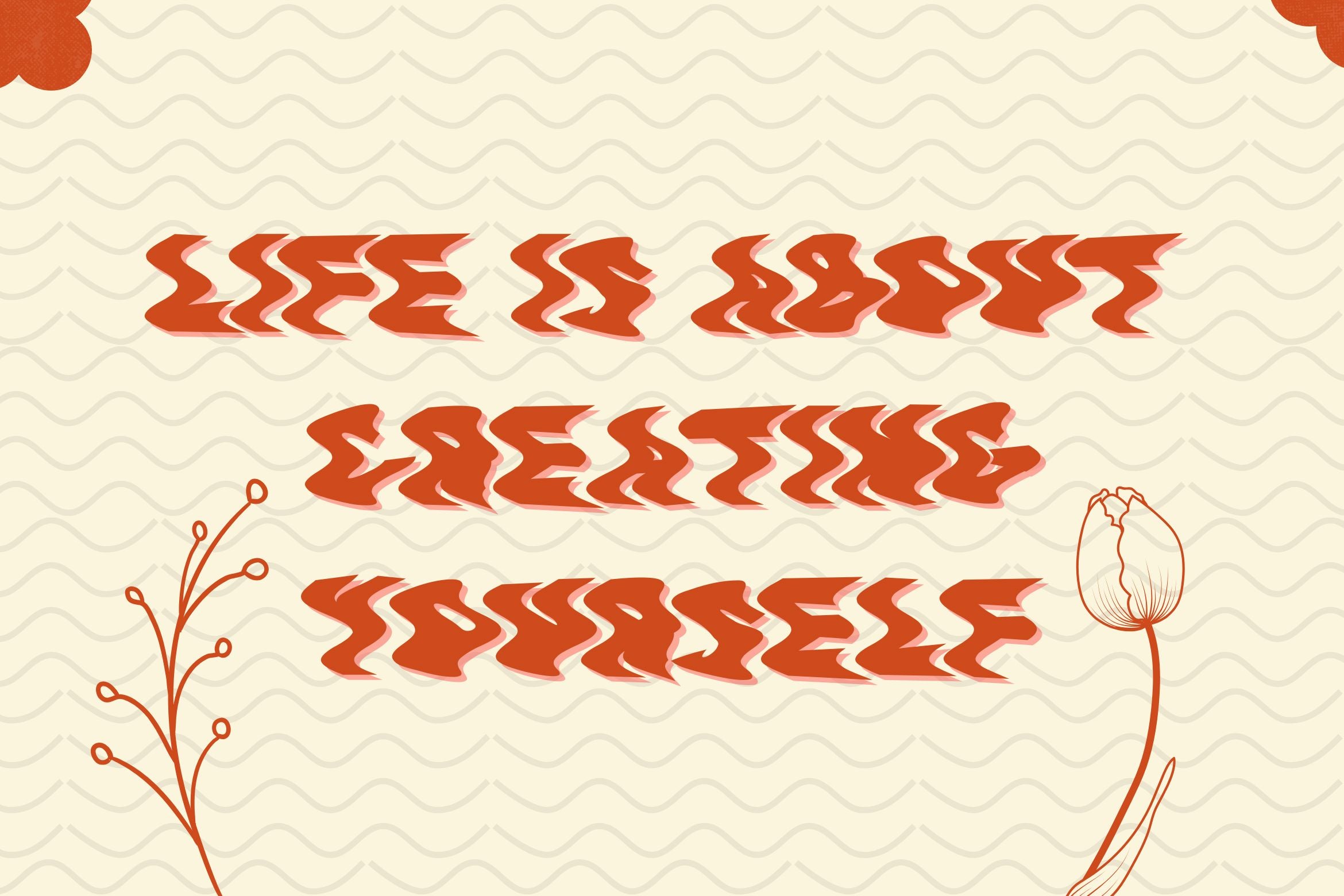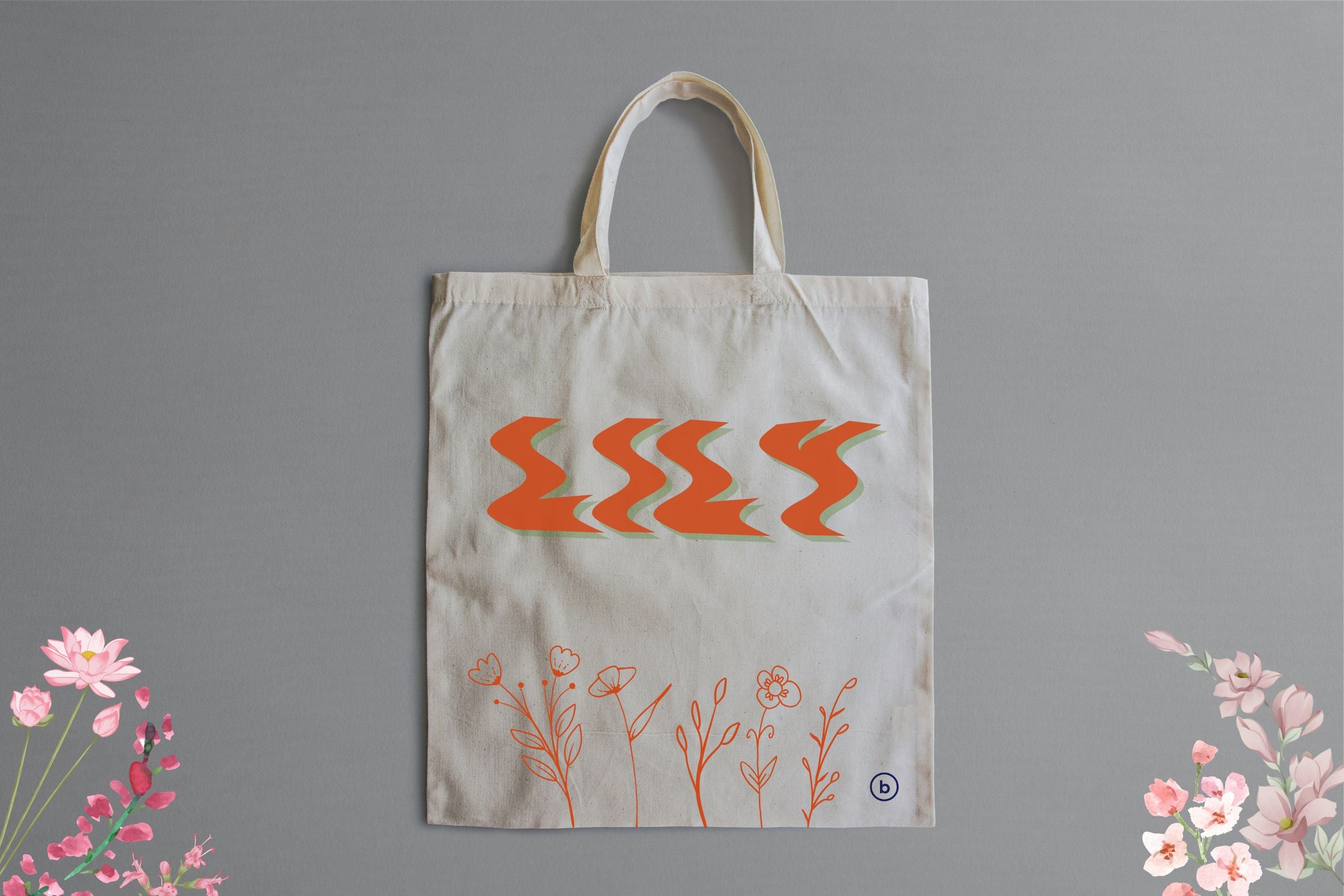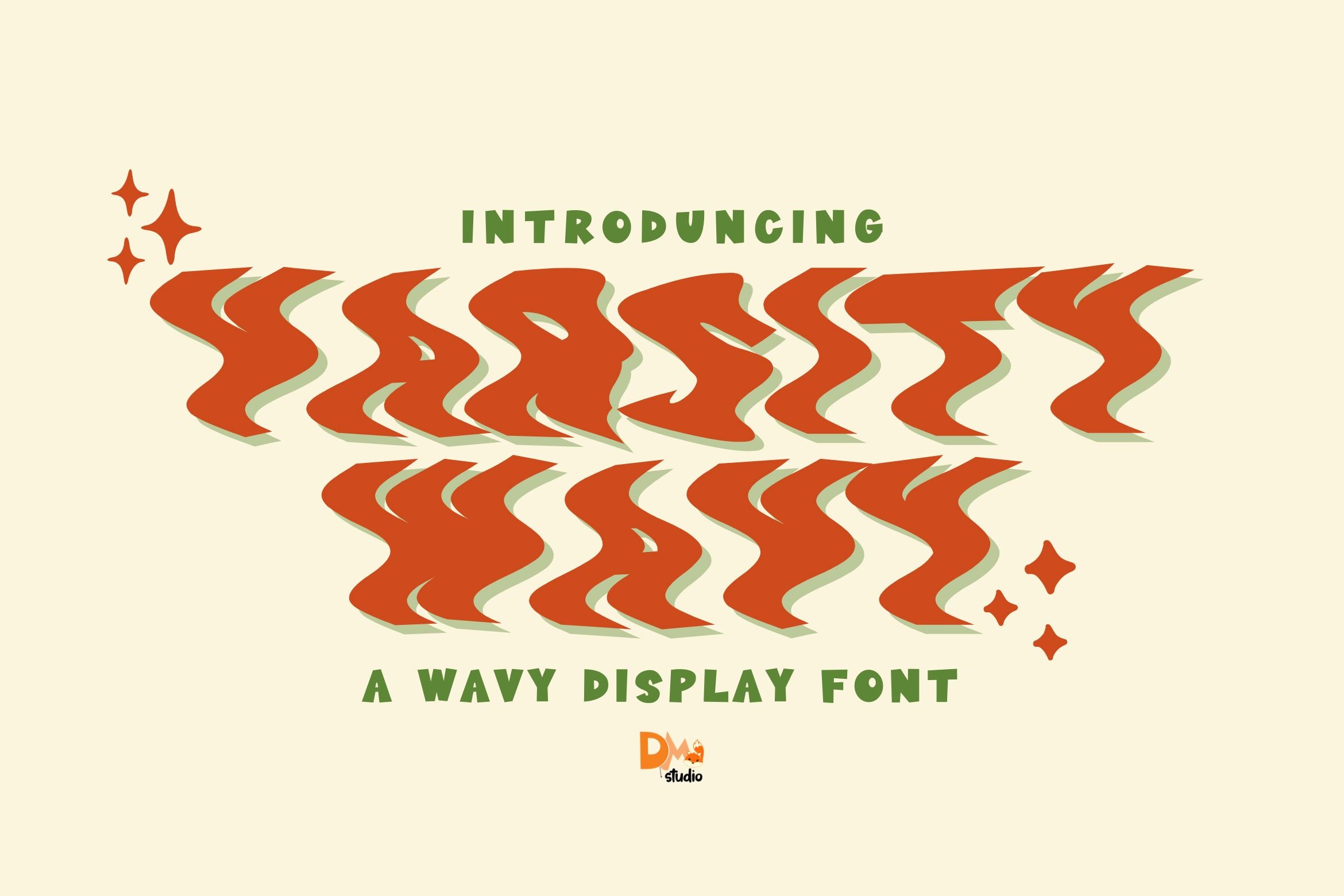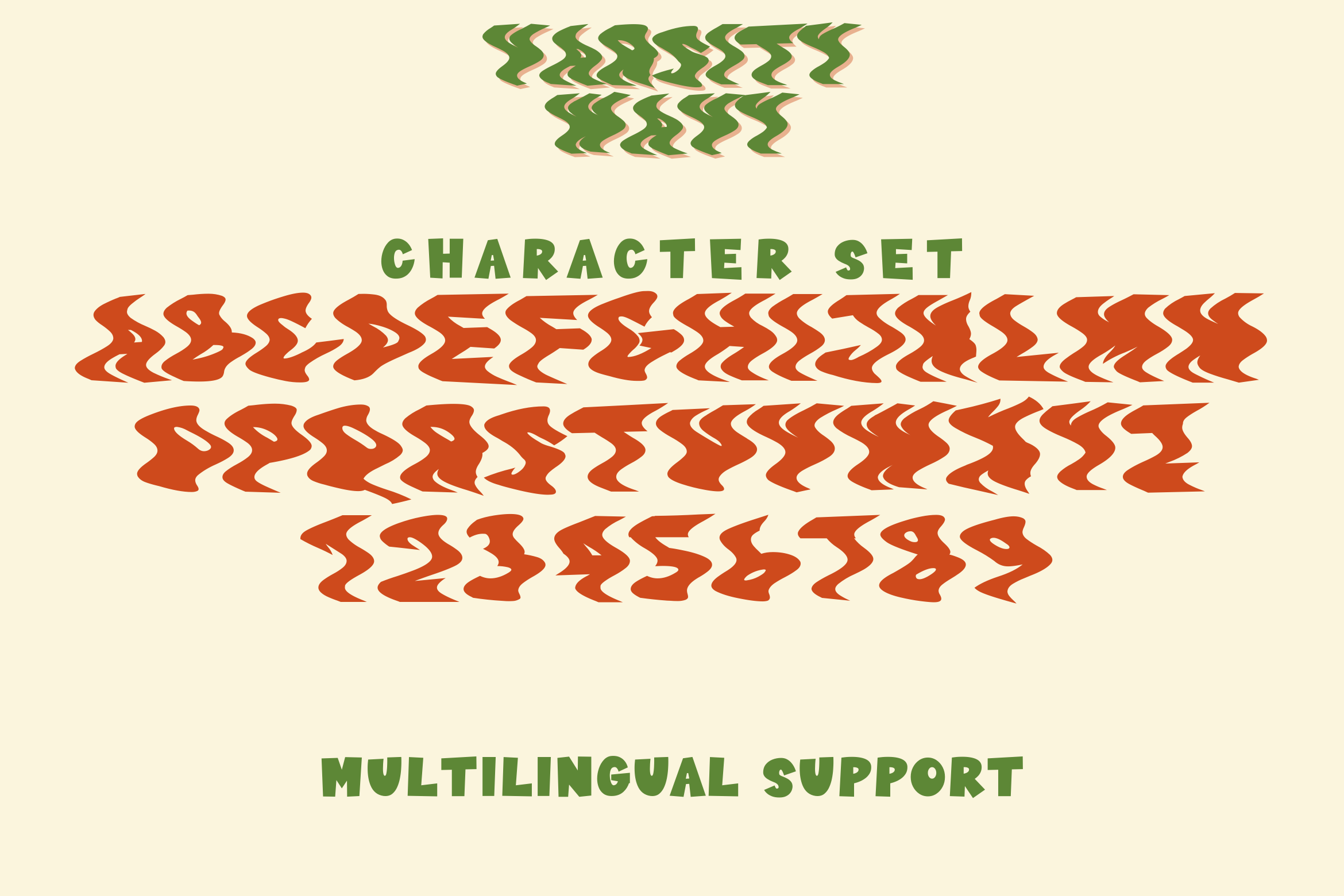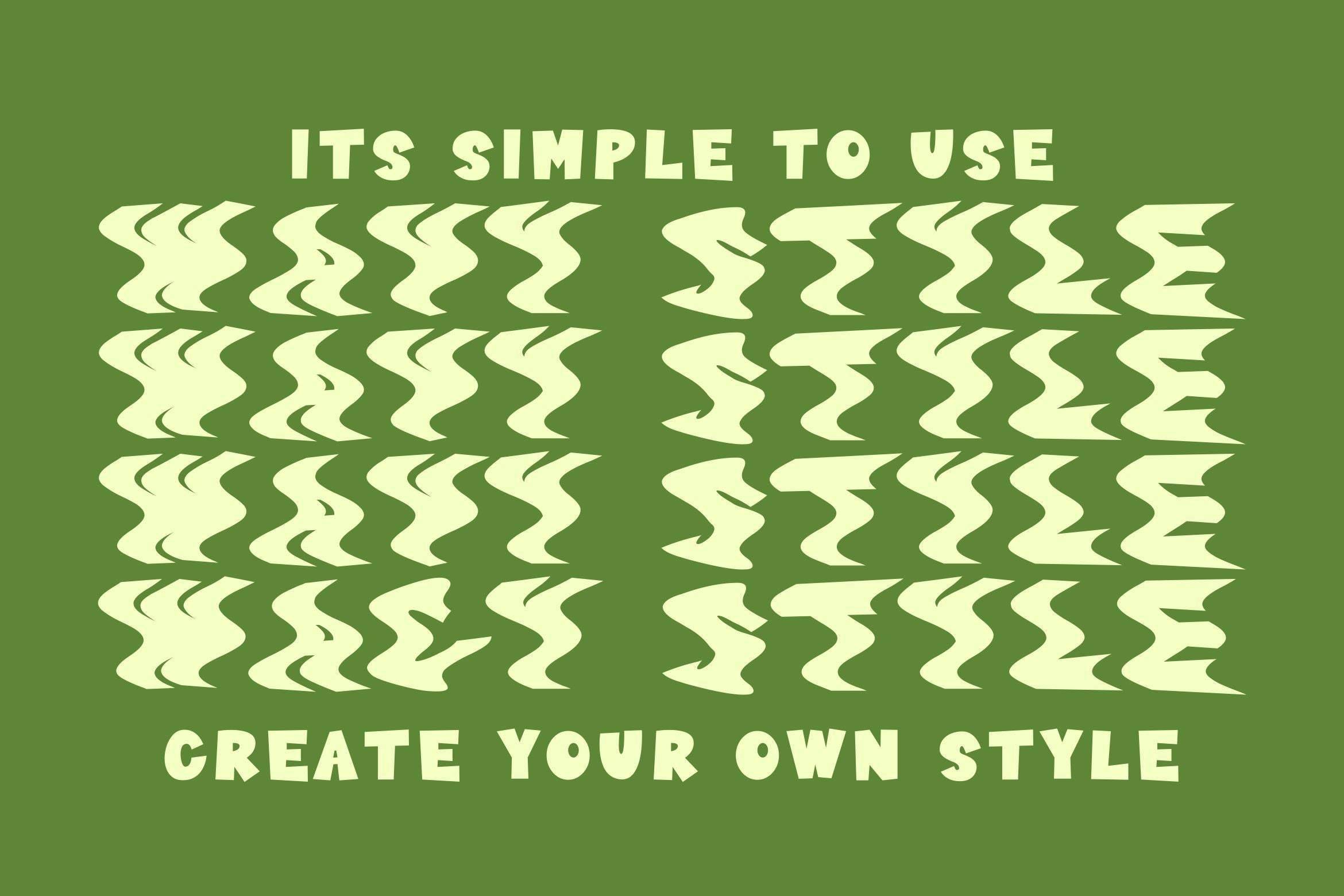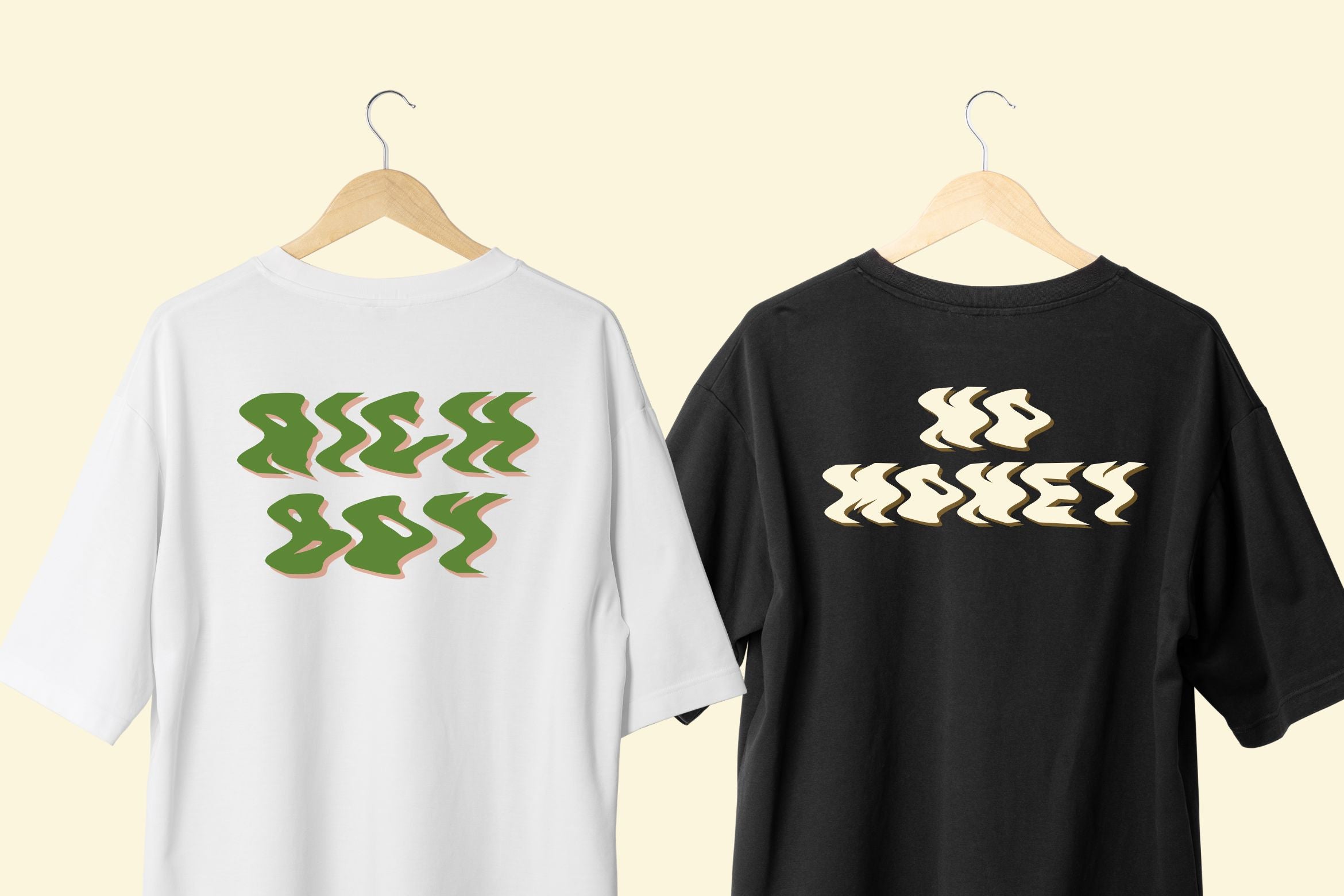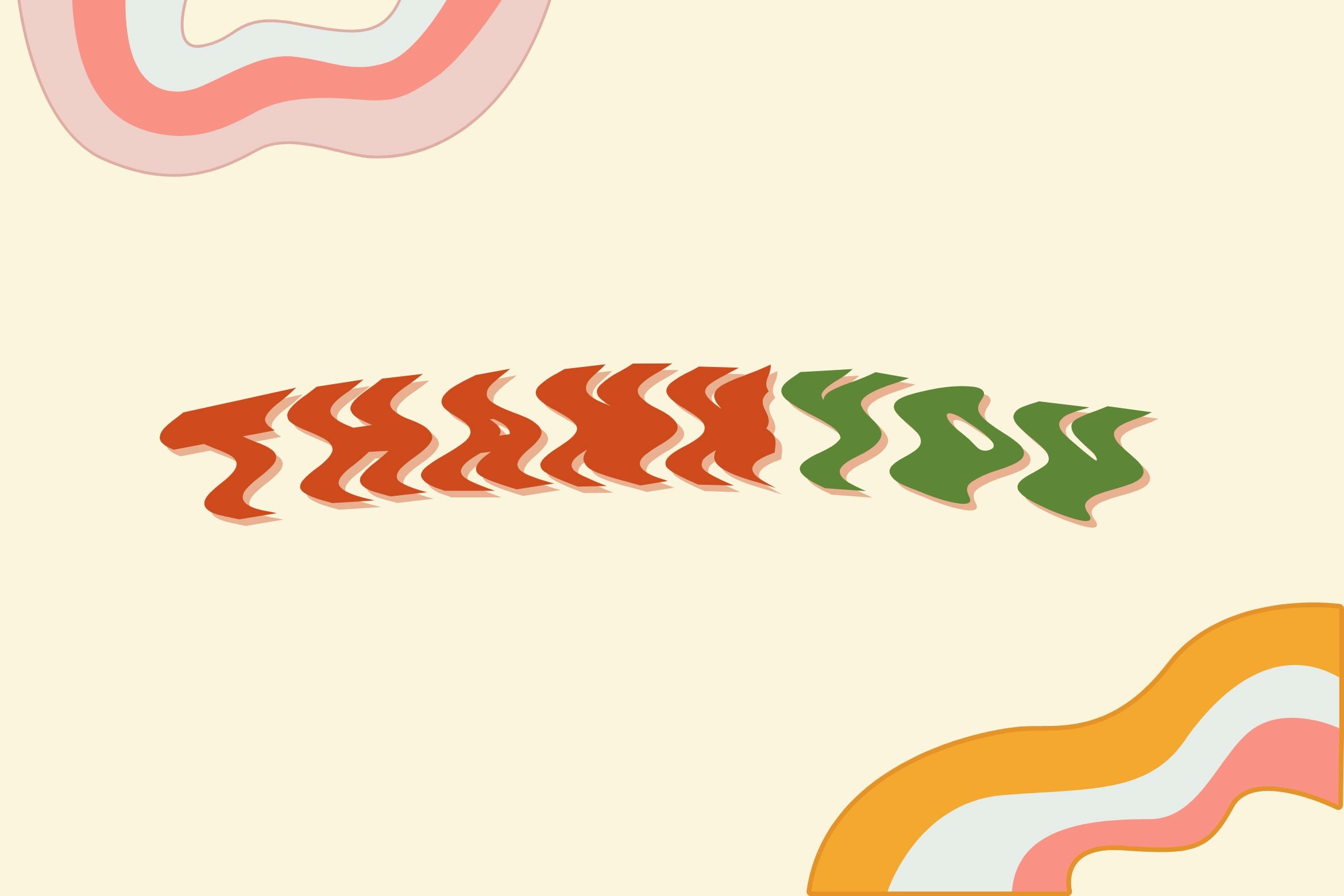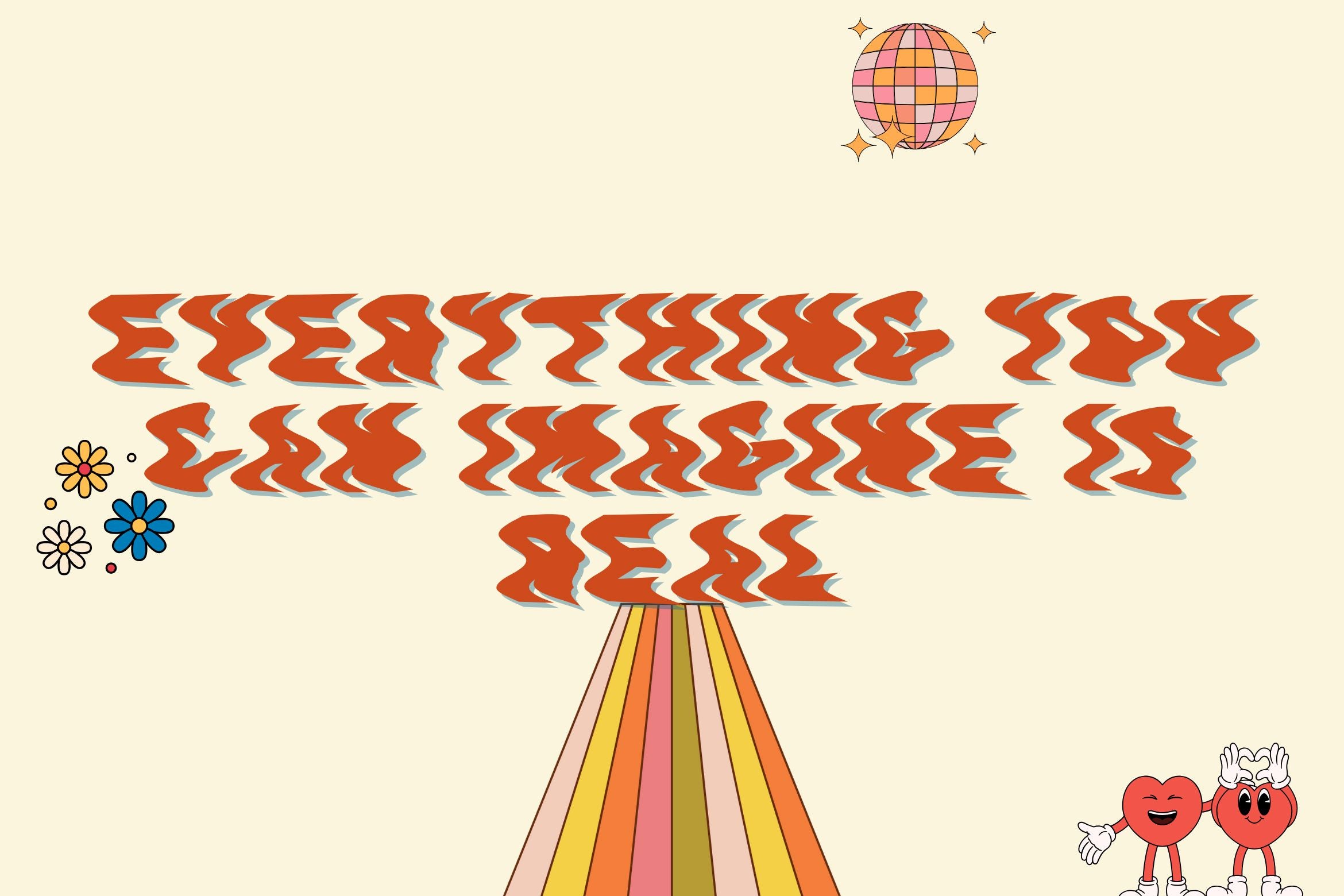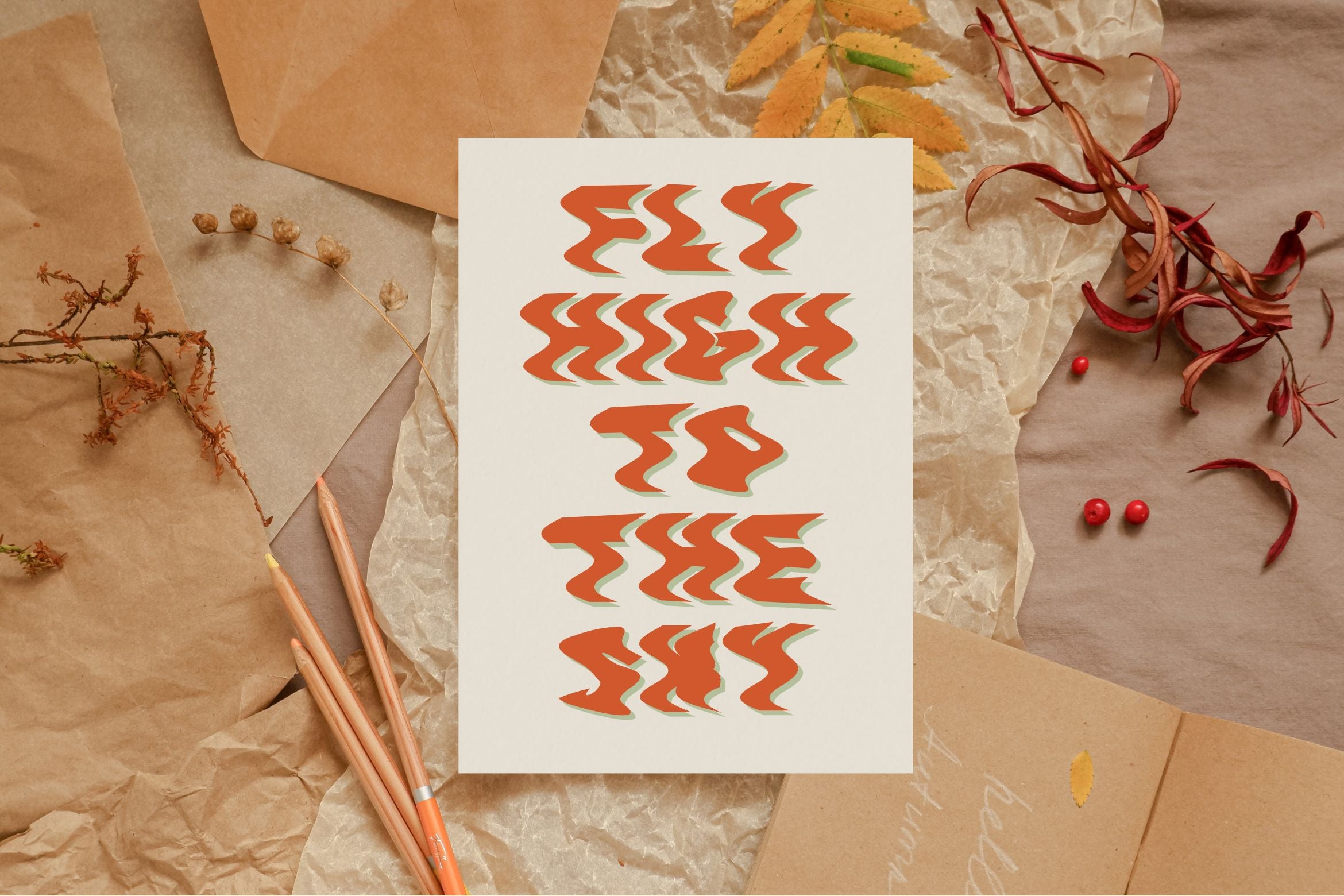
Varsity Wavy Font – Retro Display Typeface with Playful Waves
If you’re looking to add a playful yet bold aesthetic to your creative work, the Varsity Wavy font is a standout choice. Blending retro vibes with a modern edge, this wavy display typeface brings dynamic movement and personality to your designs. Whether you’re crafting posters, packaging, or social media content, Varsity Wavy adds a smooth, flowing rhythm to your typography that captures attention instantly.
Retro Style Meets Modern Energy
With its wavy letterforms and bold structure, Varsity Wavy font delivers a perfect blend of vintage aesthetics and contemporary flair. The font’s smooth curves add motion and a lighthearted feel to any layout. It’s particularly effective in creative industries where uniqueness and vibrancy are essential—like fashion, music events, food packaging, or youth branding.
Full Character Support & Versatility
Varsity Wavy comes with a complete character set, including uppercase and lowercase letters, numerals, punctuation, and multilingual support. This wide range of characters allows for full creative flexibility across multiple languages and design contexts. It’s suitable for both display headlines and branding visuals that demand attention.
Make Waves with Varsity Wavy Font